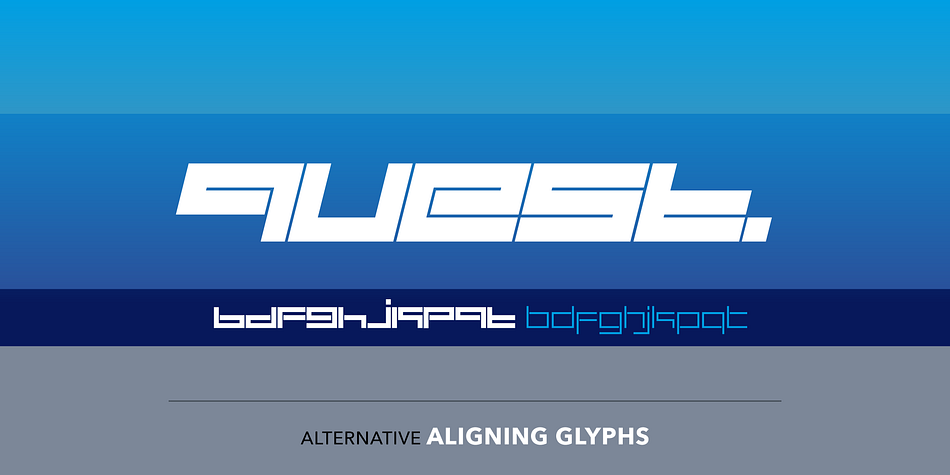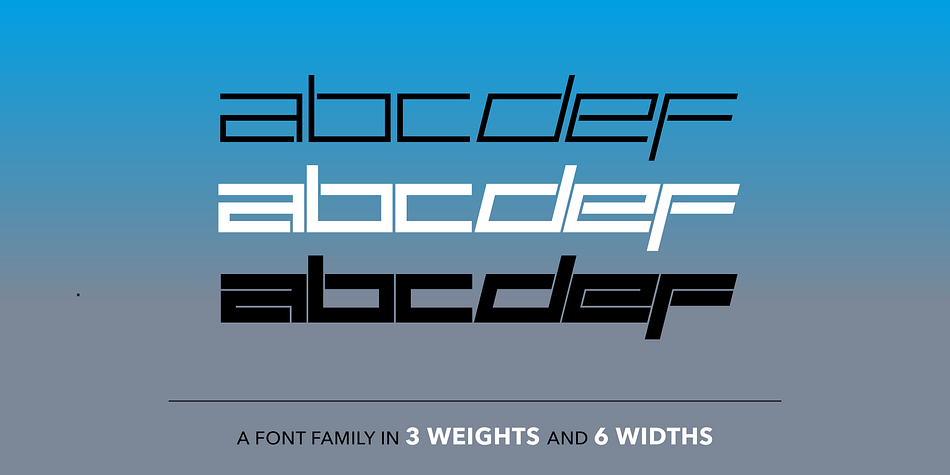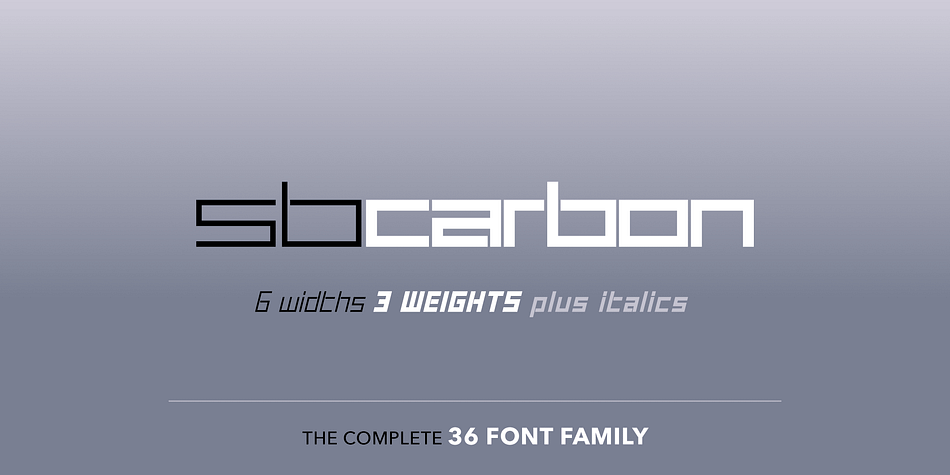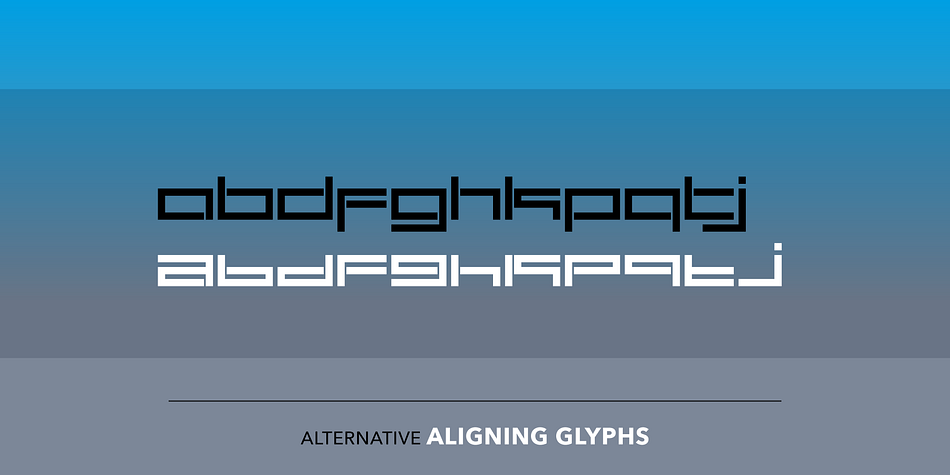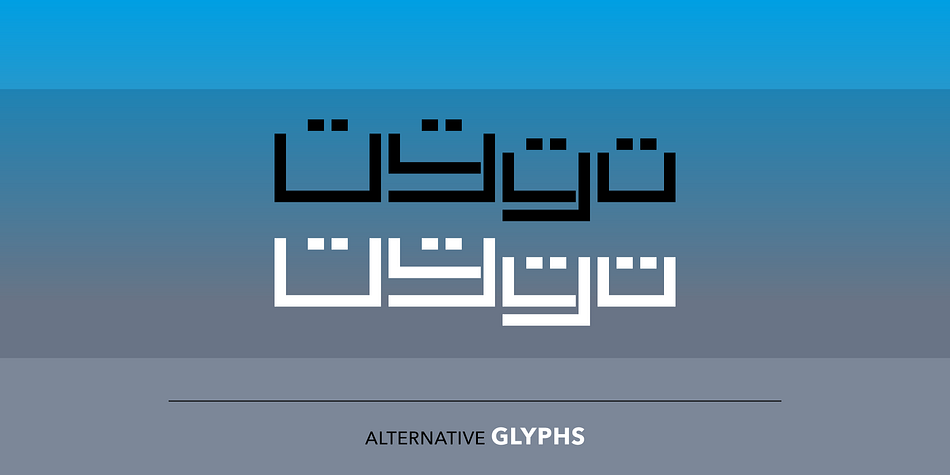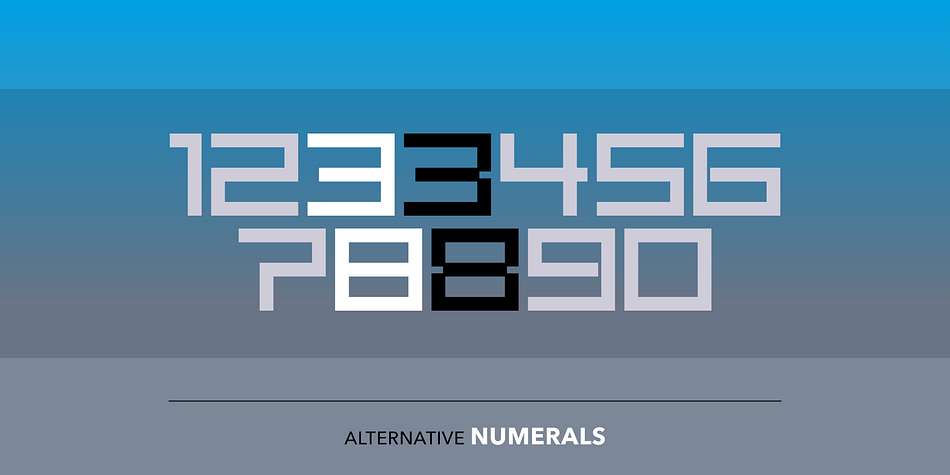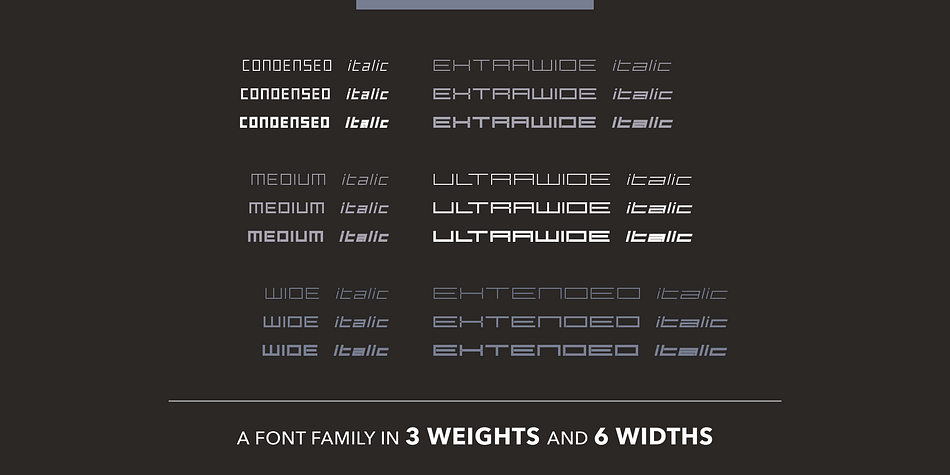
Designed by Craig Stainton, SB Carbon is a display font family. This typeface has thirty-six styles and was published by SelfBuild Type Foundry.
• Features alternative aligning glyphs, alternative numerals and single storey a.
SB Carbon is a square typeface loosely inspired by the Sinclair computing logo with its geometric, rectangular lower-case letterforms. The style has a distinct 1980s flavour, and SB Carbon adds a few pixel-like elements into the mix, resulting in something slightly more arcade-like.
SB Carbon is designed for use in small amounts, perhaps in a logotype or short headline. It looks good reversed out of white, much like the logo which inspired it.